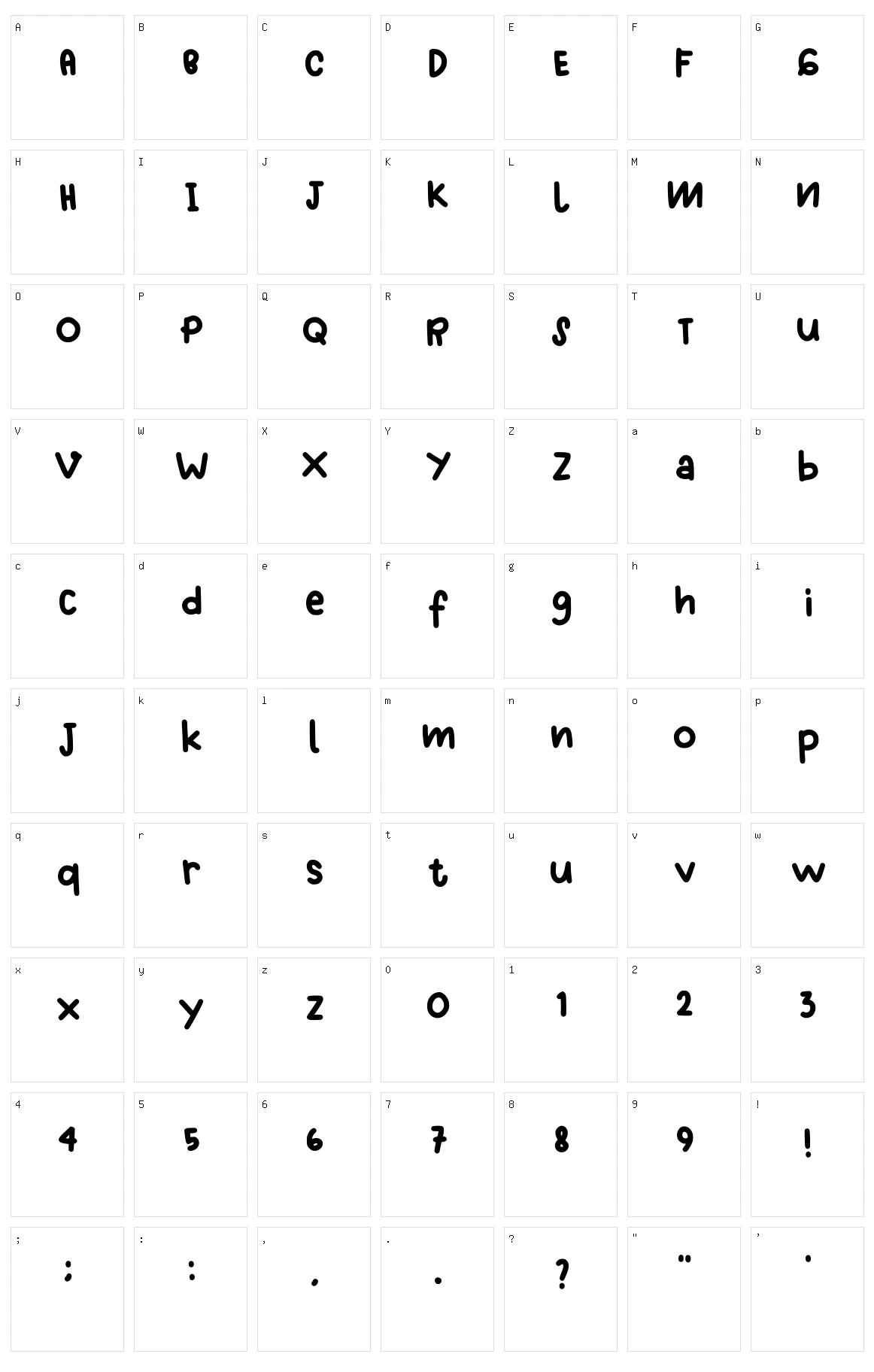
The free font Ganjel Rel is carefully designed by marmwut, showcasing a thoughtful balance of creativity and usability and falls under the Script font style. When you download the ZIP file, it contains only 754.24 KB of font files, making it lightweight and quick to download. Please review the license details below to understand permitted usage and distribution rights. If license information is not available, we recommend using this font for personal projects only or contacting the author directly for commercial usage permissions.